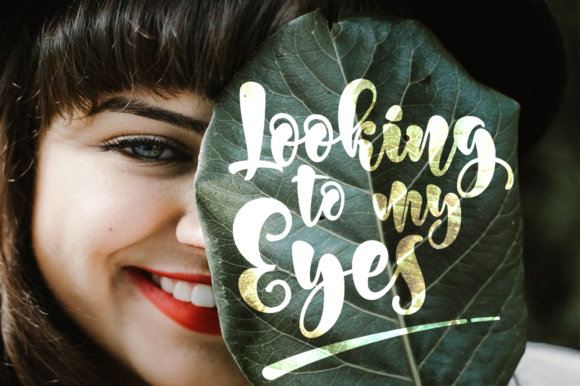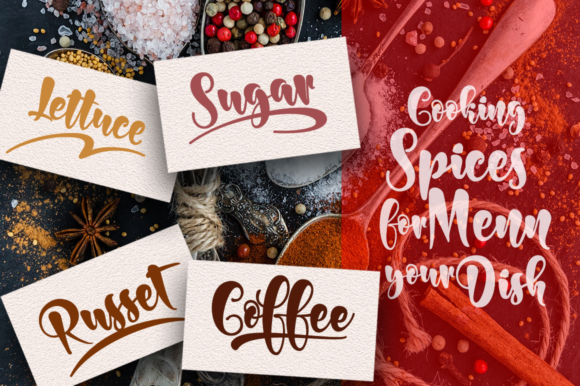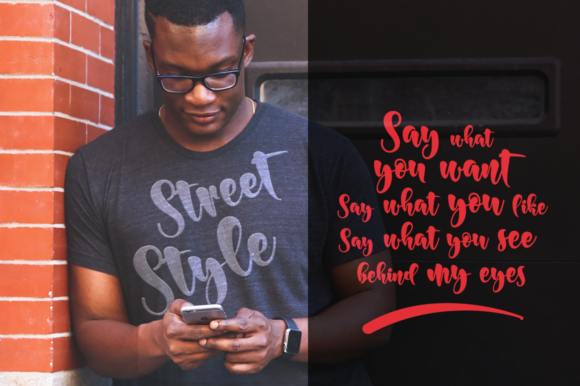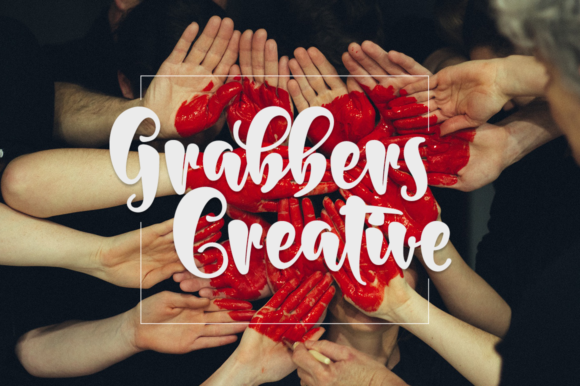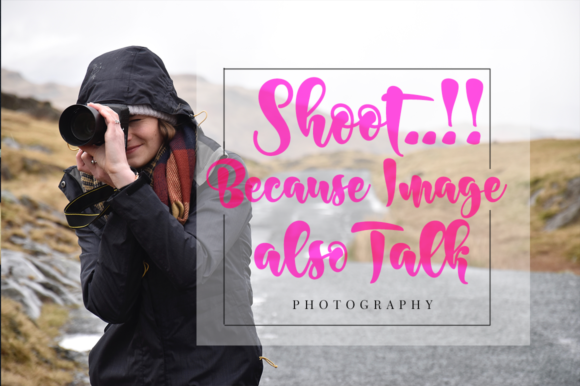
The Power of Bonita Font: Elevate Your Designs with Confidence
I’ll never forget the time I was working on a branding project for a new coffee shop. My client wanted a bold, eye-catching font that would make their logo stand out on a crowded street. I spent hours scouring the internet for the perfect font, but nothing seemed quite right. That was until I stumbled upon the Bonita font. Its unique, striking look immediately caught my attention, and I knew I had found the perfect fit. In this article, I’ll share with you why I’m obsessed with the Bonita font and how you can use it to take your designs to the next level.
An Honest Review of Bonita Font
- ✨ Bold and Beautiful: The Bonita font is a stunning bold font that commands attention. Its striking look is perfect for designs that need to stand out.
- ✅ Versatile: Whether you’re working on a logo, poster, or social media graphic, the Bonita font adapts seamlessly to different design contexts.
- 💡 Instant Impact: This font has a way of instantly elevating your design, making it more engaging and memorable.
While the Bonita font is an excellent choice for many designs, there are a few things to keep in mind:
- 🤔 Legibility at Small Sizes: While the Bonita font is beautiful at large sizes, it can become a bit tricky to read at smaller sizes. Make sure to test it at different scales to ensure it works for your design.
- ⚠️ Overuse: As with any bold font, be careful not to overuse the Bonita font. It’s perfect for headlines and titles, but may not be the best choice for body text.
The Backstory of Bonita Font
The Bonita font was designed by a team of typographers who wanted to create a bold, eye-catching font that would stand out in a crowded design landscape. Inspired by classic bold fonts, they added a modern twist to create a unique and striking look. Today, the Bonita font is a popular choice among designers and crafters who want to add a touch of elegance and sophistication to their work.
Q: What is the Bonita font best used for?
A: The Bonita font is perfect for designs that need to stand out, such as logos, posters, social media graphics, and headlines.
Q: Is the Bonita font easy to read?
A: The Bonita font is a bold font, and while it’s beautiful at large sizes, it can become a bit tricky to read at smaller sizes. Make sure to test it at different scales to ensure it works for your design.